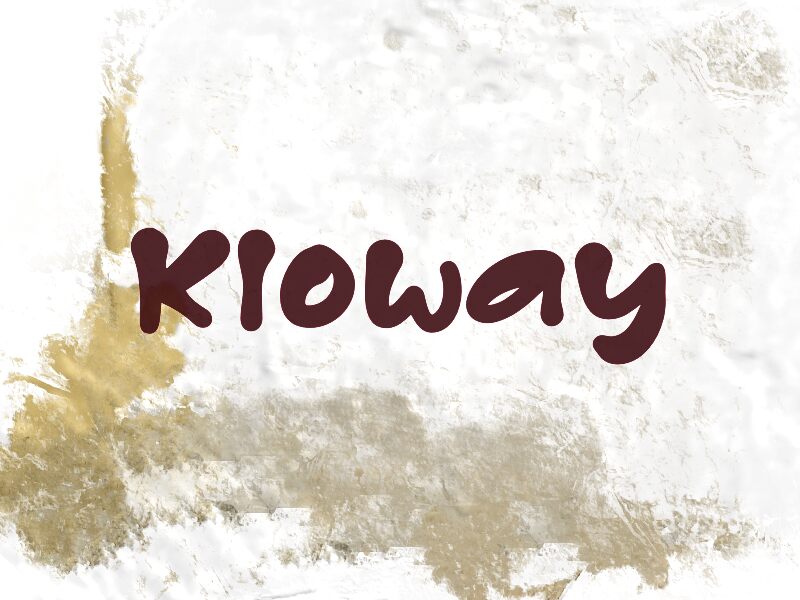
K Kloway font by wep is an informal font with a friendly style that is casual and approachable with modern characteristics. This free font cartoon typeface has a warm and organic feel and will add life to your next design. Letters are informal and written, which will create an approachable design whether they are combined, placed next to each other, or drawn over an outline.
K Kloway works best in logo design, packaging, apparel design, branding, social media, posters, and all sorts of printed artwork. You can also use it in invitations, greeting cards, and book covers, especially for children.
Kloway is a contemporary and stylish free font designed for a variety of creative applications. Its unique letterforms and elegant curves make it an ideal choice for branding, invitations, and other graphic design projects. This font combines modern aesthetics with versatility, allowing designers to create eye-catching visuals with ease.
Whether you are working on a website, a poster, or a simple social media graphic, Kloway enhances your designs with its distinct personality. With its clean lines and balanced structure, this free font is not only visually appealing but also highly readable, ensuring that your message stands out clearly.